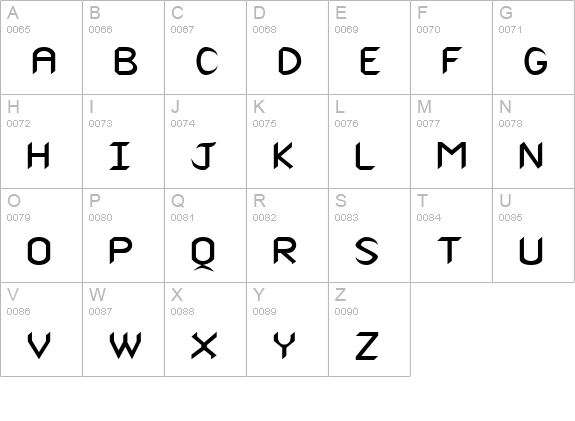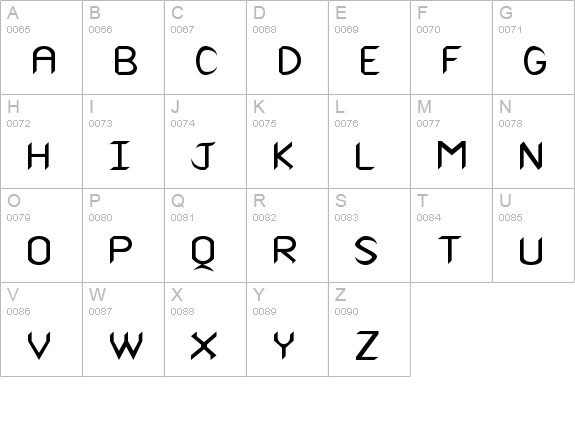
Spike-Extended Normal Font Details
Spike-Extended Normal is the standard, neutral, extended-width variant in the Spike typeface family \xE2\x80\x94 well suited to general body text, paragraphs, and standard typographic work.
Introducing Spike-Extended Normal font, a stylish and versatile typeface that is sure to elevate your designs to new heights. With its clean lines and modern aesthetic, this font is perfect for a wide range of projects, from branding and advertising to web design and more. What sets Spike-Extended Normal font apart is its extended character set, allowing you to express your creativity without limitations. Whether you need to showcase headlines, body text, or both, this font has got you covered with its exceptional legibility and balanced proportions. Not only does Spike-Extended Normal font exude sophistication and professionalism, but it also adds a touch of uniqueness to your work. Its subtle curves and precise letterforms create a harmonious blend of modernity and elegance that is sure to catch the eye. And the best part? Spike-Extended Normal font is available for free download exclusively at FontsMarket.com. That's right, you can enhance your designs with this exceptional font without spending a dime. Simply head over to FontsMarket.com, search for Spike-Extended Normal font, and start elevating your designs with this versatile typeface. So why wait? Download Spike-Extended Normal font today and unlock a world of design possibilities. Whether you're a seasoned designer or just getting started, this font is sure to become a valuable asset in your creative arsenal. Don't miss out on this opportunity to enhance your projects with a font that combines style, versatility, and the best part - it's free!